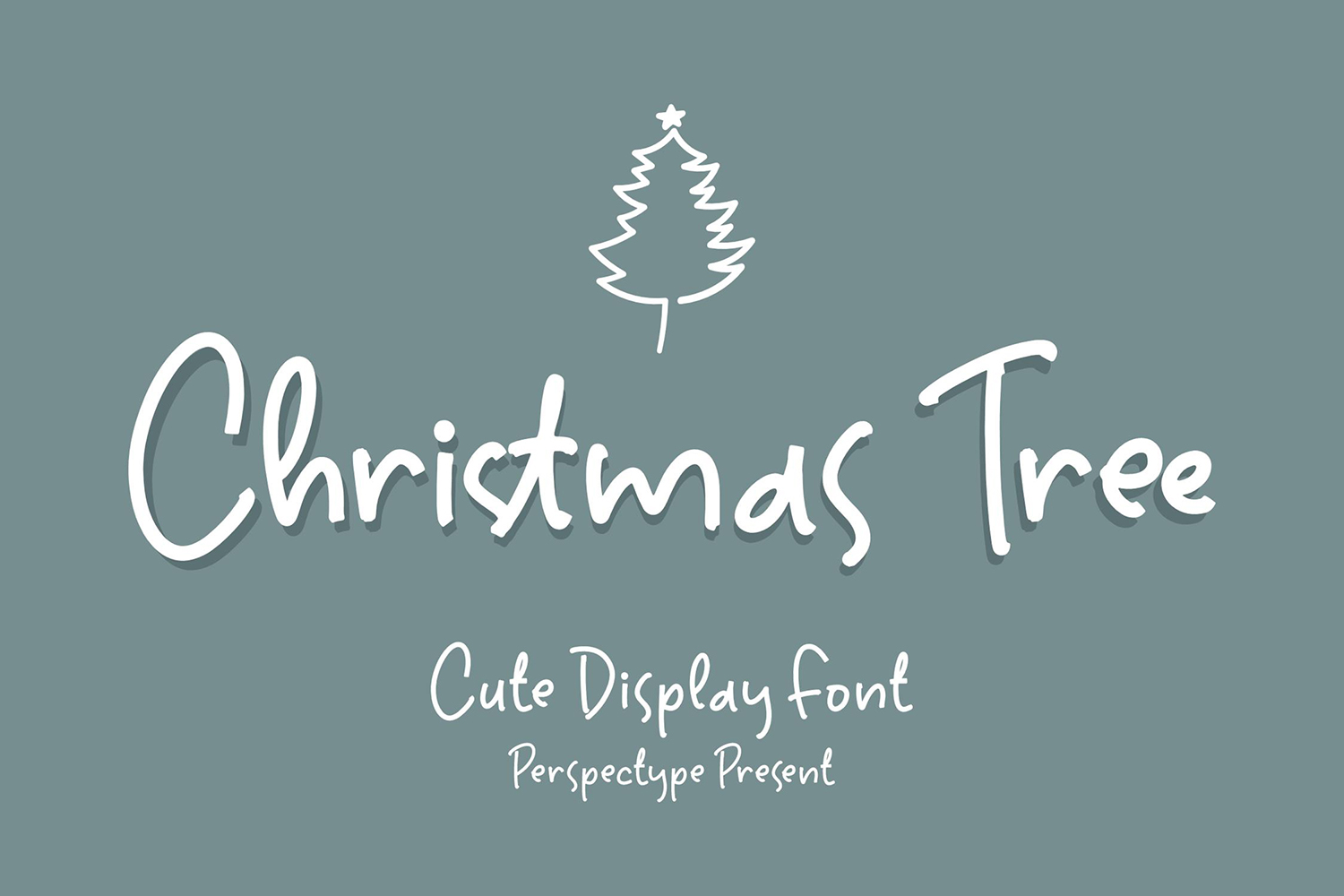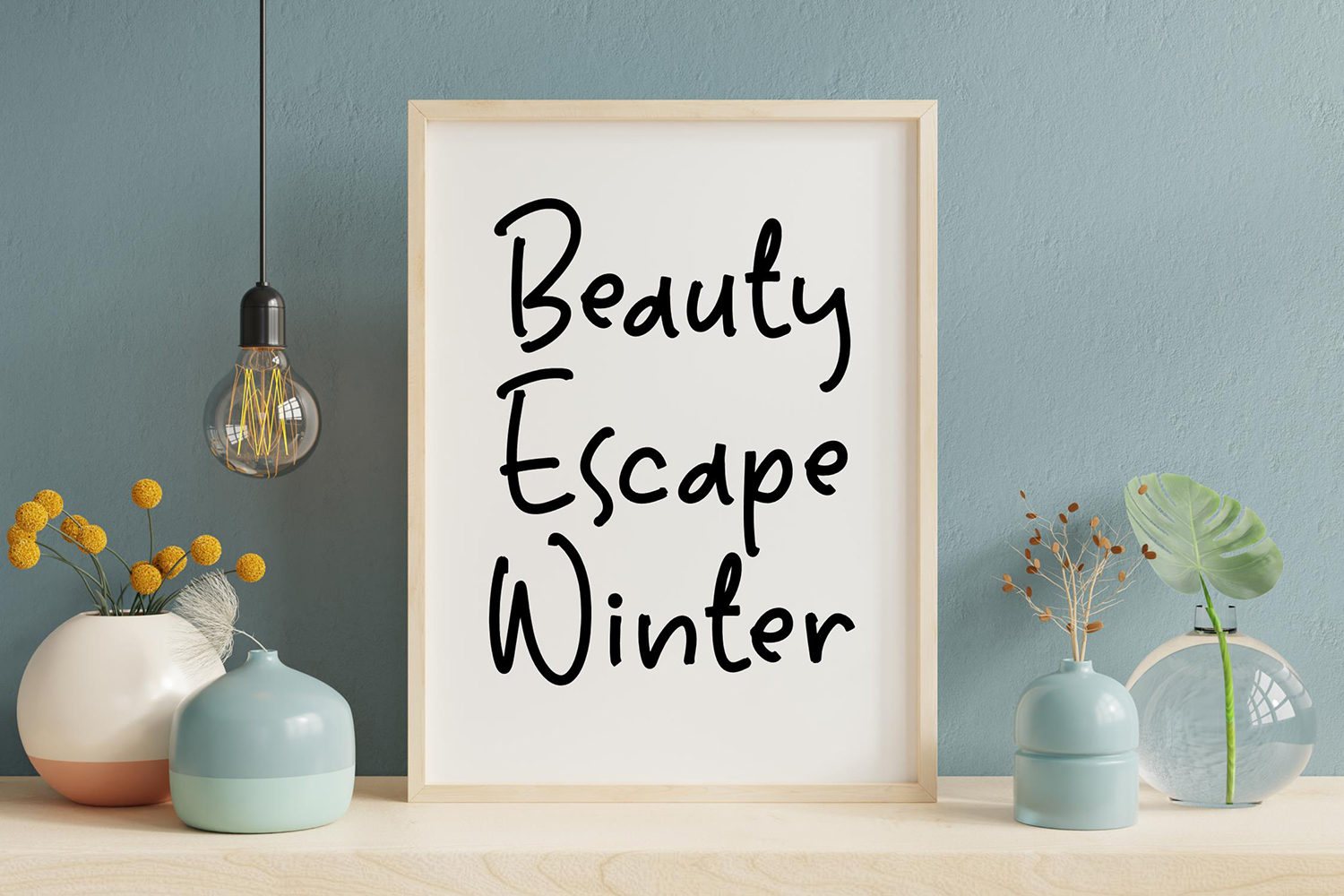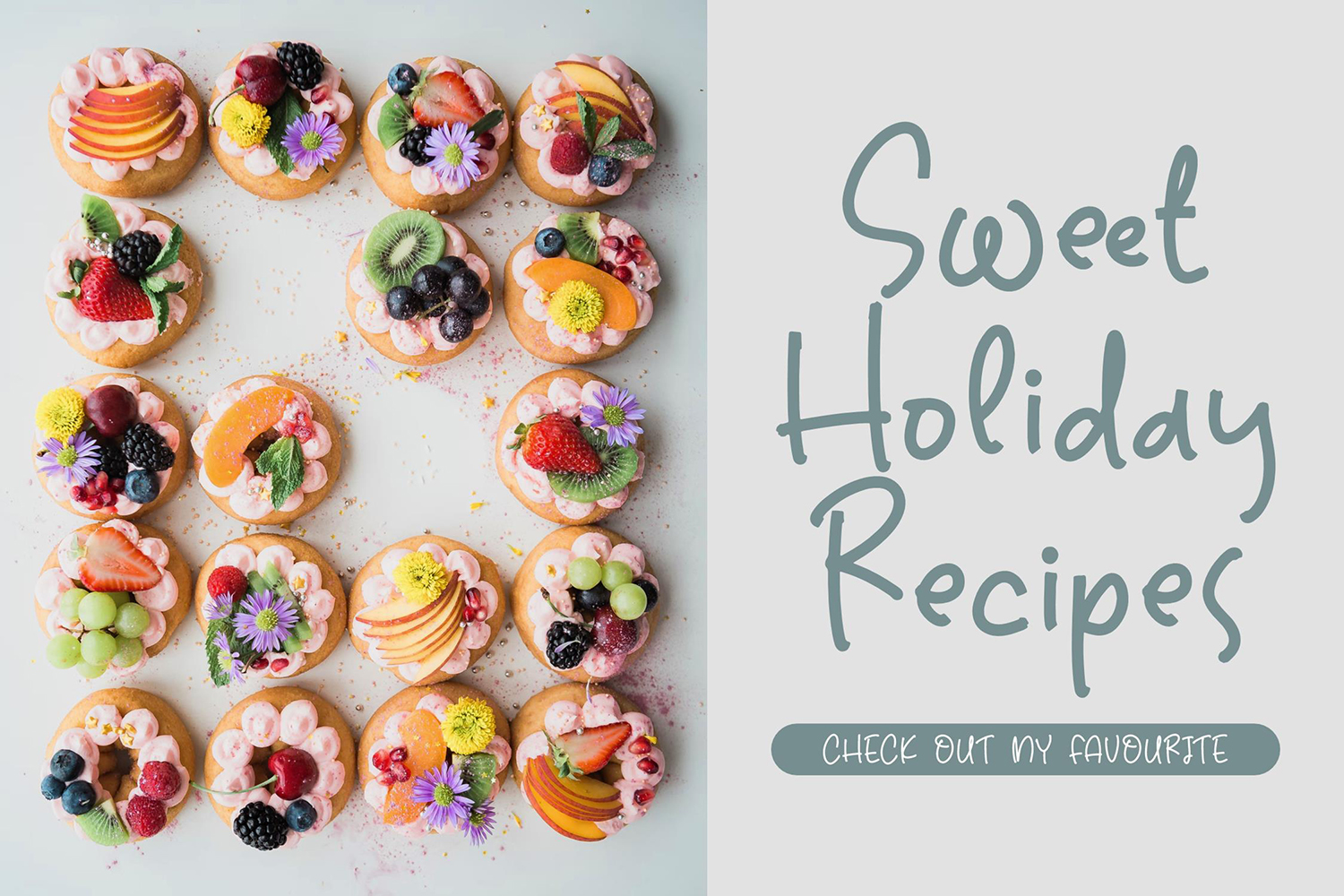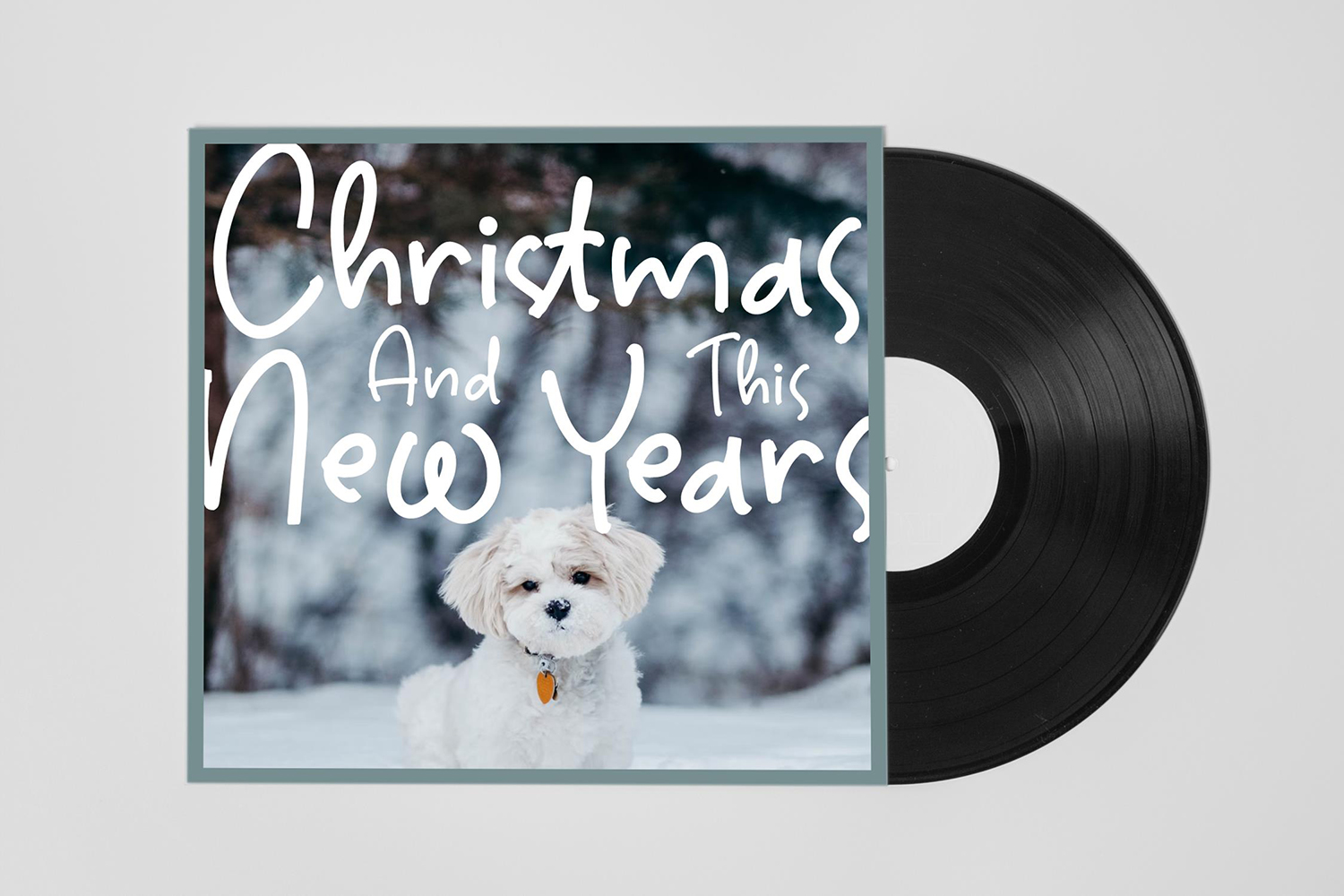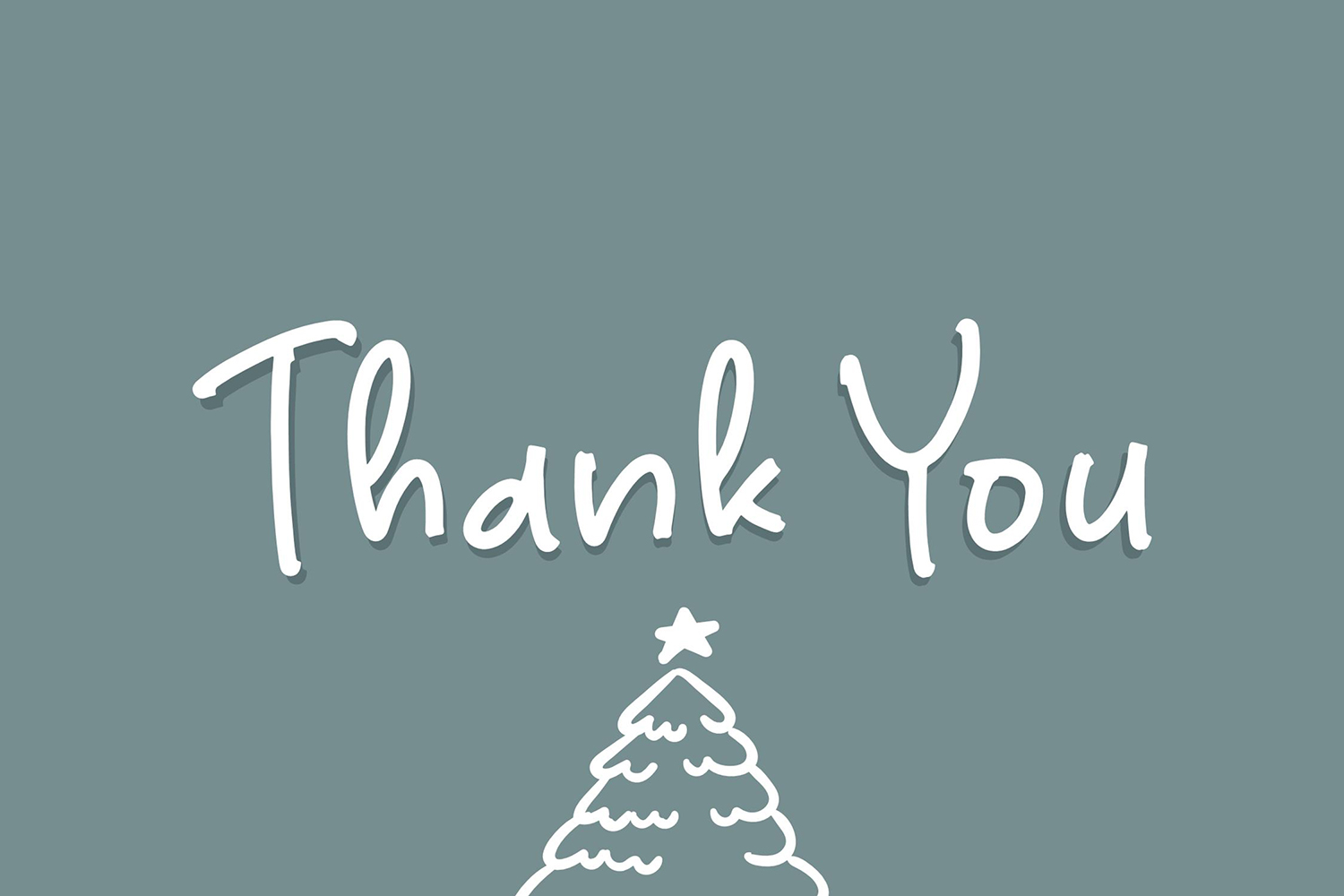
Christmas Tree Free Font
Christmas Tree Free Font is a cute handwritten font suitable for any projects such as logos, branding projects, homeware designs, product packaging, mugs, quotes, posters, shopping bags, t-shirts, book covers, name cards, invitation cards, greeting cards, labels, photography, watermark, special events, and all your other lovely projects that need a beautiful script taste.